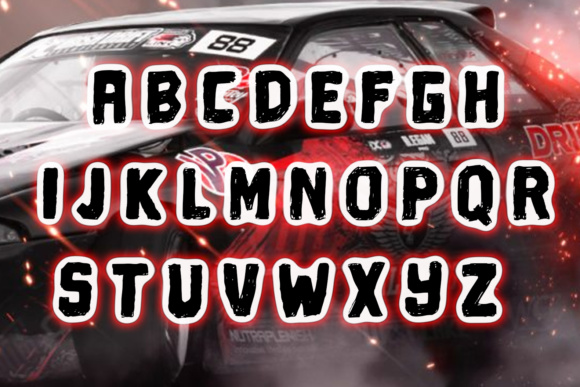
Get Ready to Hit the Open Road with a Font that’s the Real Deal
Remember the thrill of being on a road trip, wind in your hair, and the world passing by in a blur? As designers, we’ve all been there – stuck in a creative rut, searching for that perfect font to capture the essence of our ideas. And then, it hits you – a font that’s as rugged as the highway, as free-spirited as the open road. Welcome to the world of Driving Around Font, a handcrafted masterpiece that’s ready to take your designs on a wild ride.
This grungy gem is not just for road trips; it’s a versatile font that’s perfect for headlines, banners, t-shirts, and more. Whether you’re a seasoned designer or just starting out, Driving Around Font is a valuable addition to your toolkit. Its unique character and charm will add a touch of personality to your designs, setting you apart from the crowd and making your work truly unforgettable.
Key Features of “Driving Around Font”
- Unique Characteristics: The font features a distinctive, hand-drawn style with a mix of rounded and angular elements, giving it a unique and eye-catching appearance.
Driving Around Font Review
Driving Around Font is a charming and eclectic font that feels like a perfect fit for creative projects. ✨ The playful combination of rounded and angular shapes creates a unique visual interest that will add a touch of personality to any design. ✨ The font also has a wide range of weights and styles, making it suitable for a variety of applications, from headings to body text.
One of the standout features of Driving Around Font is its legibility, even at smaller sizes. ✨ The font is well-suited for digital displays, and its clear lines make it easy to read on both screens and print materials.
- ⚠️ The font may not be suitable for formal or professional applications, as its playful nature may come across as unprofessional.
- ⚠️ The wide range of weights and styles can be overwhelming, making it difficult to choose the perfect combination for a specific project.
- ⚠️ Some characters, such as the ‘g’ and ‘q’, may not be easily distinguishable, which could lead to confusion in certain contexts.
Overall, Driving Around Font is a great choice for designers who want to add some personality and whimsy to their projects. While it may have some limitations, its unique charm and versatility make it a valuable addition to any design library.
The “Driving Around Font” is commonly used in:
- Infographics and data visualizations.
- Marketing and advertising materials.
- Design and branding projects.
Q: Are there any specific font pairing recommendations for Driving Around Font?
Yes, Driving Around Font pairs well with sans-serif fonts like Open Sans or Lato. These font combinations provide a clean and modern aesthetic, making them suitable for various design projects. However, feel free to experiment with different font pairings to find the perfect match for your specific design needs.